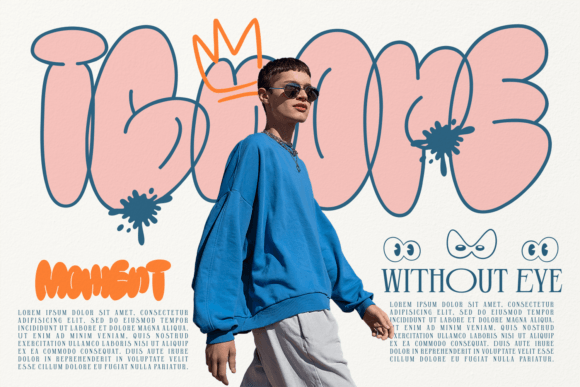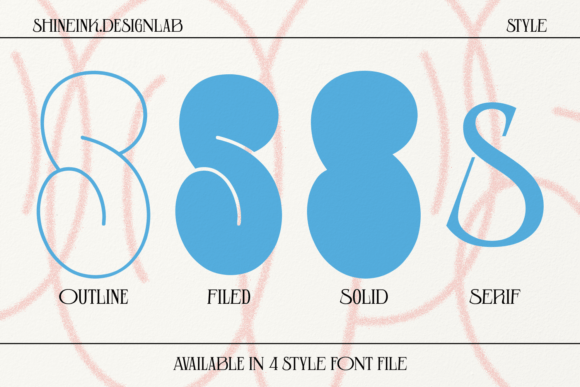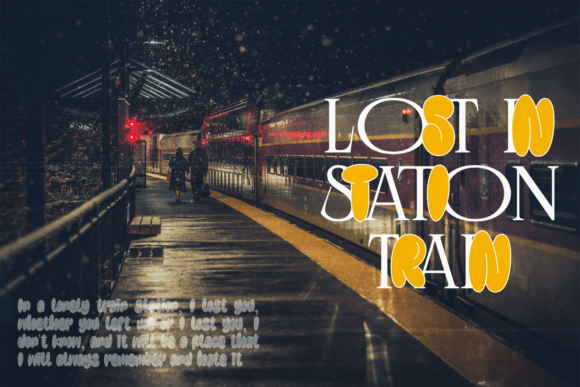
Introduction to Pocapops Font
Have you ever found yourself staring at a blank canvas, a blank page, or even a blank screen, waiting for the perfect font to bring your creative project to life? It’s a moment we’ve all experienced – the moment when the right design element can make all the difference between a good idea and a great one. And that’s exactly where the Pocapops Font comes in – a high-quality design resource that’s about to revolutionize the way you approach your next creative project.
With its unique blend of graffiti-style elements and structured serif typography, the Pocapops Font is a game-changer for designers. Whether you’re working on a logo, poster, or any other design that demands a balance of urban grit and typographic finesse, this font is sure to elevate your project. And the best part? You can download it for free, complete with a transparent background that makes it easy to use in any design scenario.
Key Features of Pocapops Font
- Unique, playful design ideal for creative projects requiring a fun and whimsical touch
- Includes a range of characters, including uppercase and lowercase letters, numbers, and special characters
- Designed to be highly legible, even at small font sizes, making it perfect for a variety of design applications
Honest Review: Pocapops Font
I recently stumbled upon the Pocapops Font, and I must say it’s a lovely addition to my design resource library. The font is available for free download, which is a huge plus for me and many other designers.
One of the things that works well with the Pocapops Font is its versatility. It’s perfect for a creative project that requires a fun and playful vibe. I’ve used it for a few personal projects, and it’s always a hit. The font is also available with a transparent background, which makes it easy to customize and integrate with other design elements.
Here are some of the things that I love about the Pocapops Font:
- Not ideal for professional or corporate projects, as it’s more playful and informal
- No bold or italic versions available
Overall, I’m really impressed with the Pocapops Font. It’s a great resource for designers who want to add a fun and creative touch to their projects. While it may not be suitable for every project, it’s definitely a valuable addition to my design library.
Tips for Getting the Most Out of Pocapops Font
For the best results, use Pocapops Font with a transparent background to create a clean and modern look. You can also experiment with different font sizes and styles to add depth and interest to your design. Additionally, consider using Pocapops Font in conjunction with other design elements, such as graphics and images, to create a visually appealing and high quality design.
Common Use Cases for Pocapops Font
Pocapops Font is a versatile design resource that can be used in a variety of creative projects, including logos, business cards, brochures, and websites. Its unique and modern design makes it an ideal choice for designers looking to add a touch of creativity to their projects. Whether you’re working on a small business project or a large-scale design initiative, Pocapops Font is